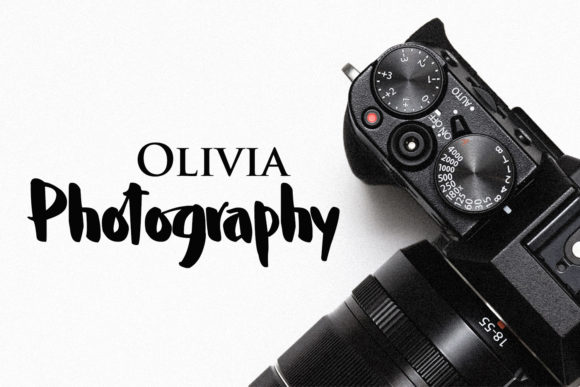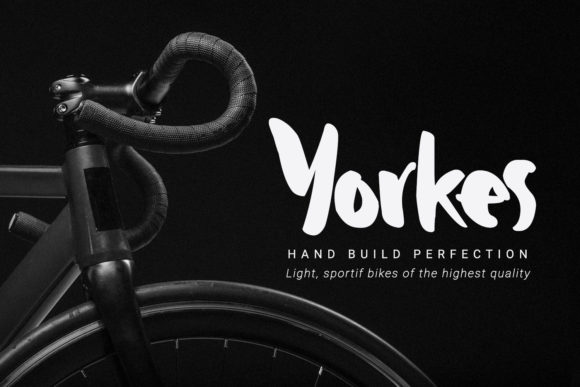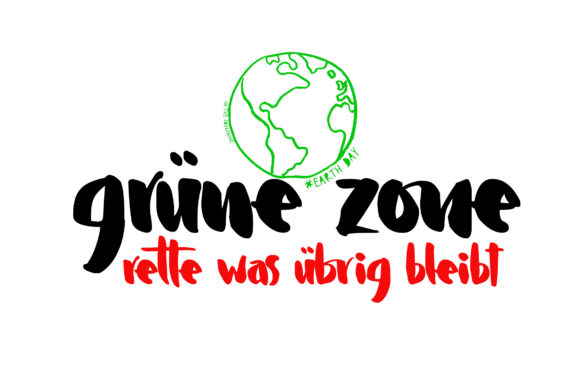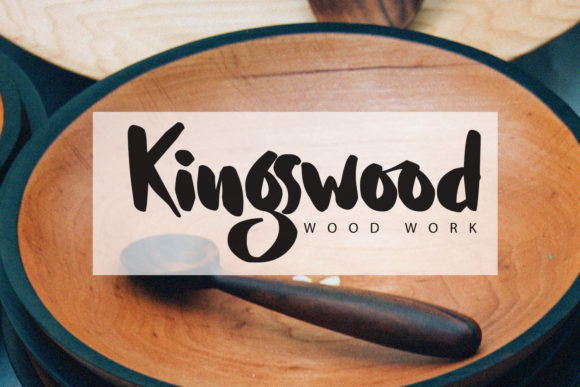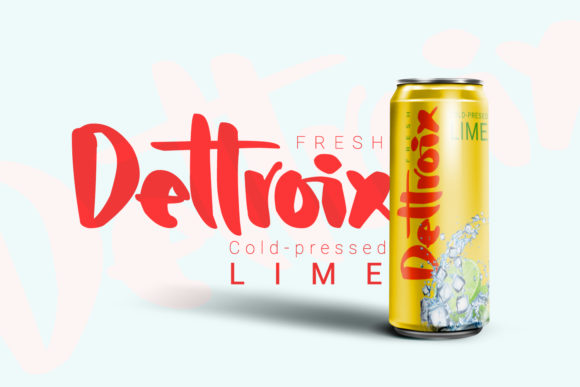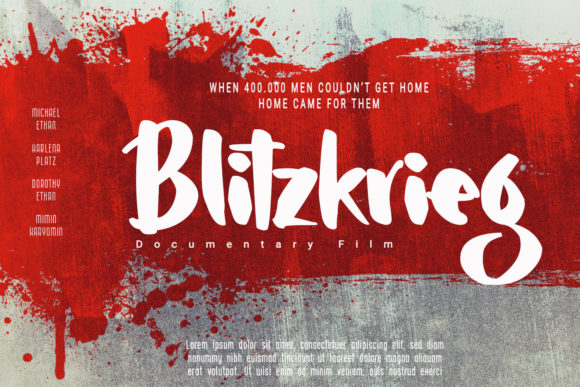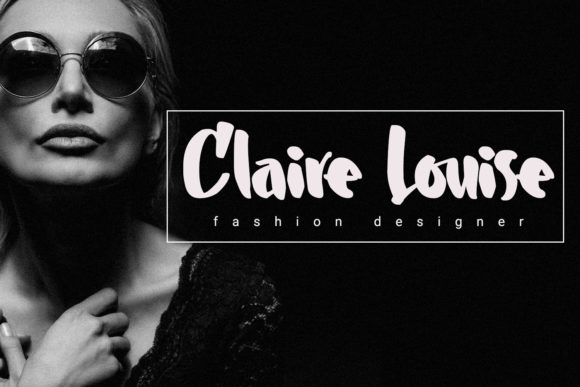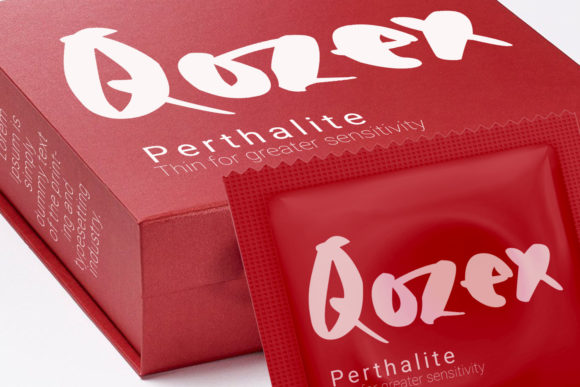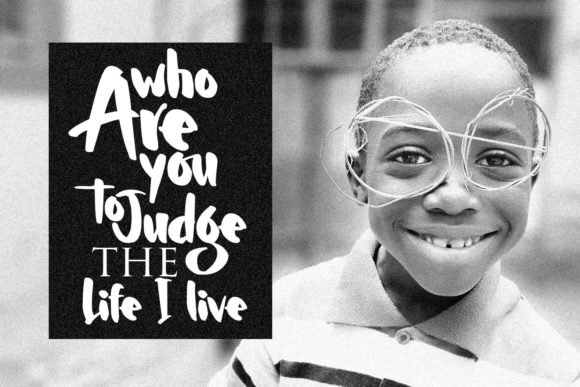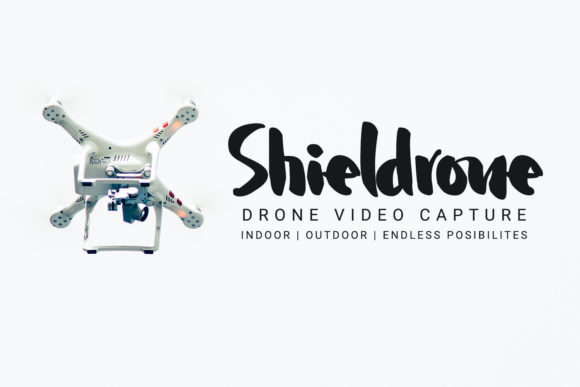
Allegroost Font
About Allegroost Font
Allegroost is a handwritten font that uses large brush strokes. Fall in love with its edgy one-of-a-kind look & feel!